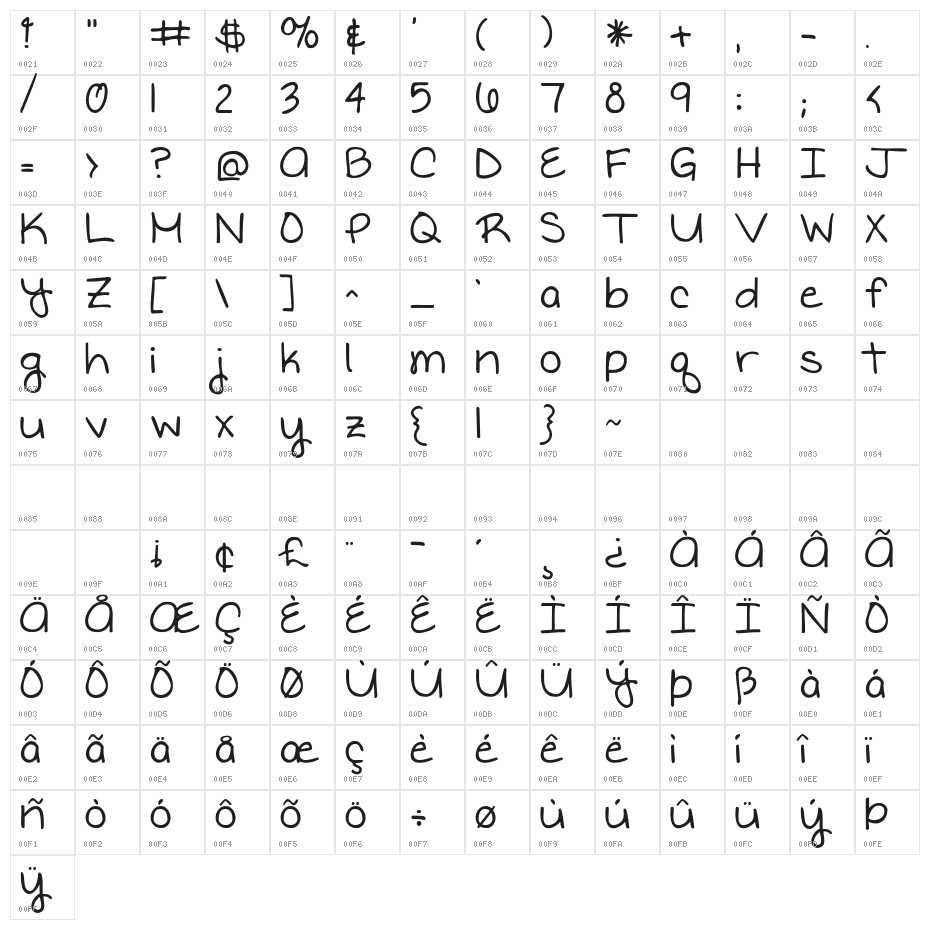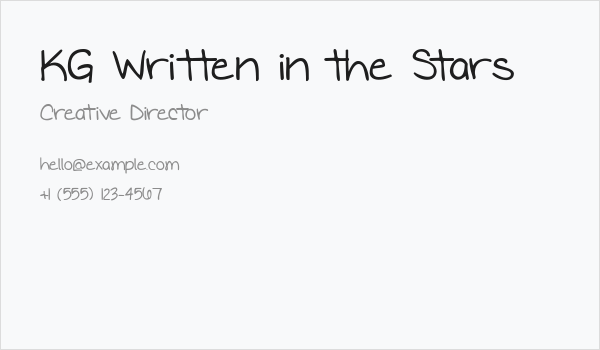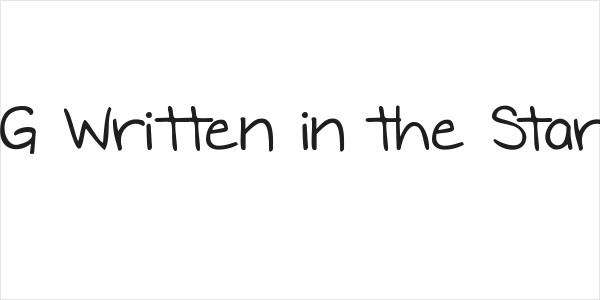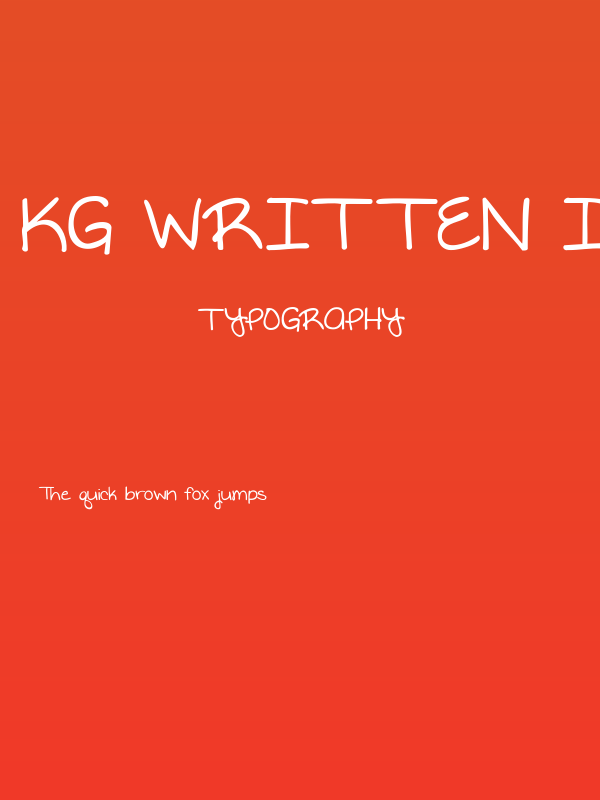
KG Written in the Stars Font
KG Written in the Stars Description
This playful and whimsical font features a handwritten style with smooth, rounded edges and a casual flow. The letters are slightly irregular, adding a personal touch that mimics natural handwriting. The uppercase and lowercase characters maintain a consistent style, with a friendly and approachable appearance. The numerals are bold and clear, ensuring readability. Special characters are creatively designed to match the overall aesthetic, making this font suitable for a variety of creative projects.
| Proposed Projects | Ideal for children's books, greeting cards, playful branding, and social media graphics. |